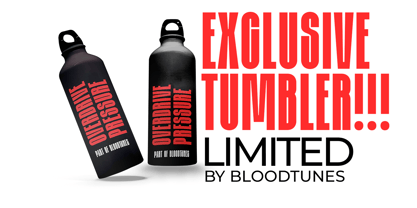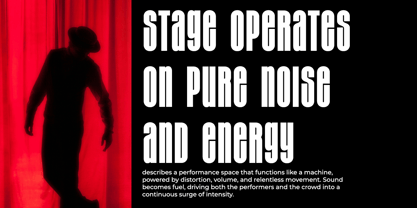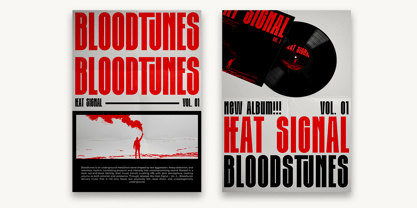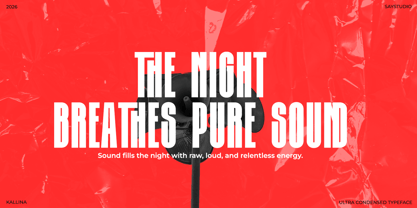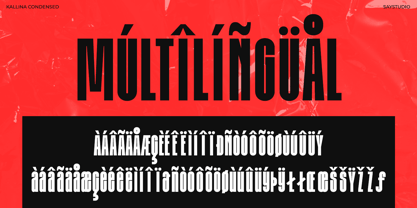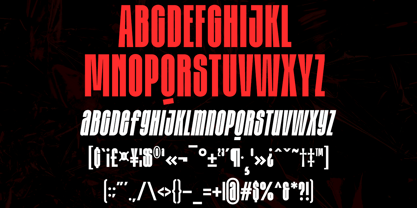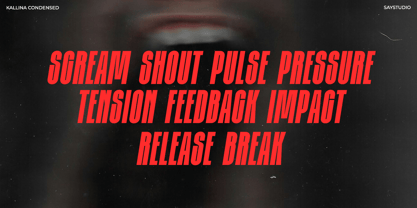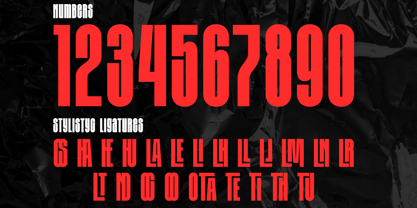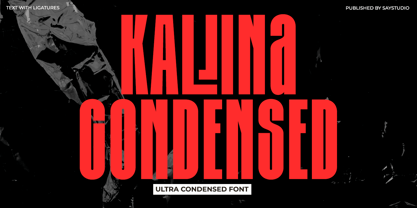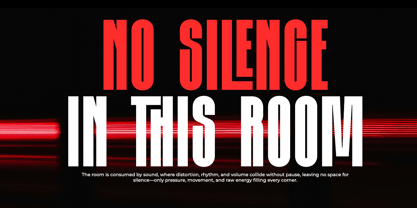
Kallina Condensed
by Say Studio
The Kallina Condensed Font Family was designed by Mussyayin and published by Say Studio. Kallina Condensed contains 2 styles and family package options. More about this family
Kalina Condensed is an ultra-condensed display typeface designed to command attention at first glance. Featuring tall proportions, a narrow width, and a bold structure, Kalina maximizes impact in limited spaces while ensuring strong readability and visual authority. Inspired by modern editorial headlines and striking poster typography, Kalina Condensed provides a powerful voice for branding, advertising, and statement-driven design. Its clean sans serif construction is enhanced by confident strokes, making it perfect for logos, packaging, campaigns, and bold typographic compositions. Whether utilized for posters, headlines, social media graphics, or visual identities, Kalina Condensed delivers intensity, clarity, and a contemporary edge. With ligatures and optimized spacing, this typeface excels across both digital and print applications where a bold presence is essential. Thank You, Have a Good Day! Saystudio
Designers: Mussyayin
Foundry: Say Studio